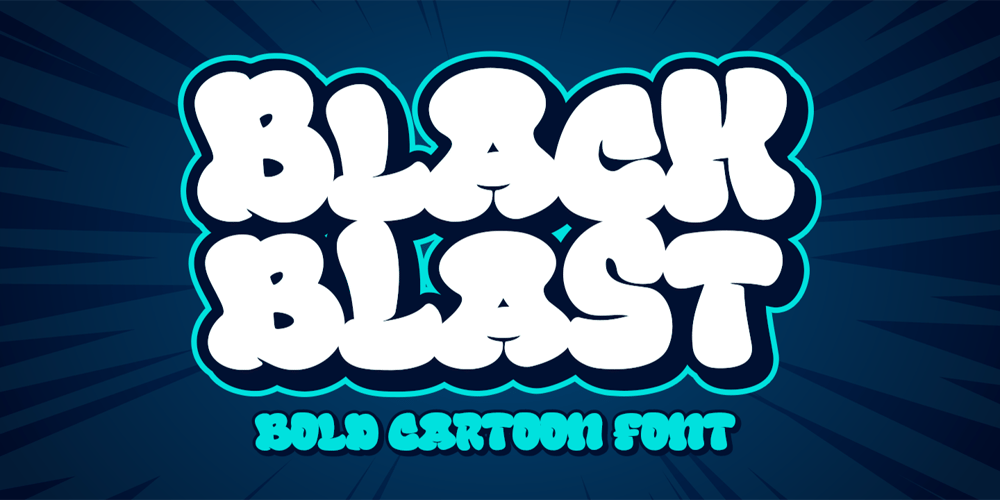
Black Blast
Black Blast font
Black Blast Font Family was designed by Bangkit Tri Setiadi and published by Blankids. Black Blast contains 2 styles and family package options. Introducing of our new product the name is Black Blast a Bold Comic Font, Black Blast inspired by playful style with a fun theme very good for kids theme design.FEATURES : Uppercase Lowercase Number Punctuation Multilingual PUA Encode Opentype